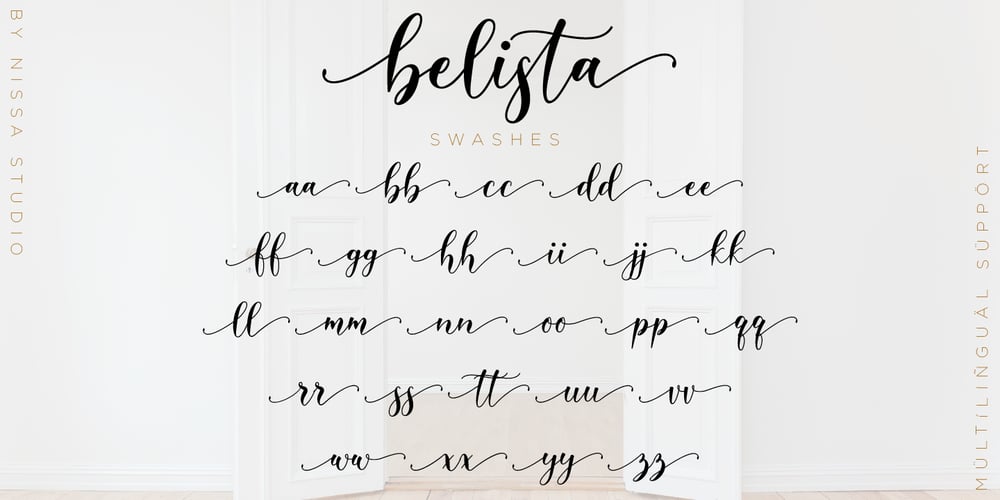
Belista Font Family was designed by Novia Himatunnisa and published by Nissa Nana. Belista contains 1 styles and family package options. Belista is a beautiful and light script font with an amazing feel. It will turn any design project into a stand out!